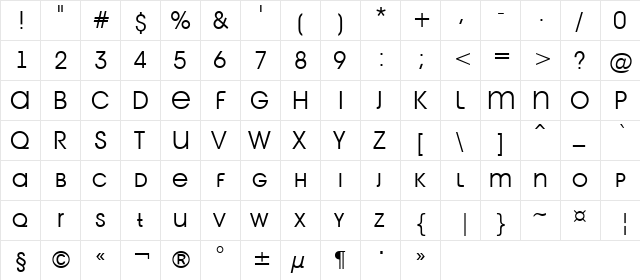
a_AvanteTitlerCpsLC Light
Design Context for a_AvanteTitlerCpsLC Typeface
a_AvanteTitlerCpsLC is a composed and adaptable typeface that performs quietly and consistently across a wide range of design contexts. Its slender proportions lend an understated elegance to any composition.